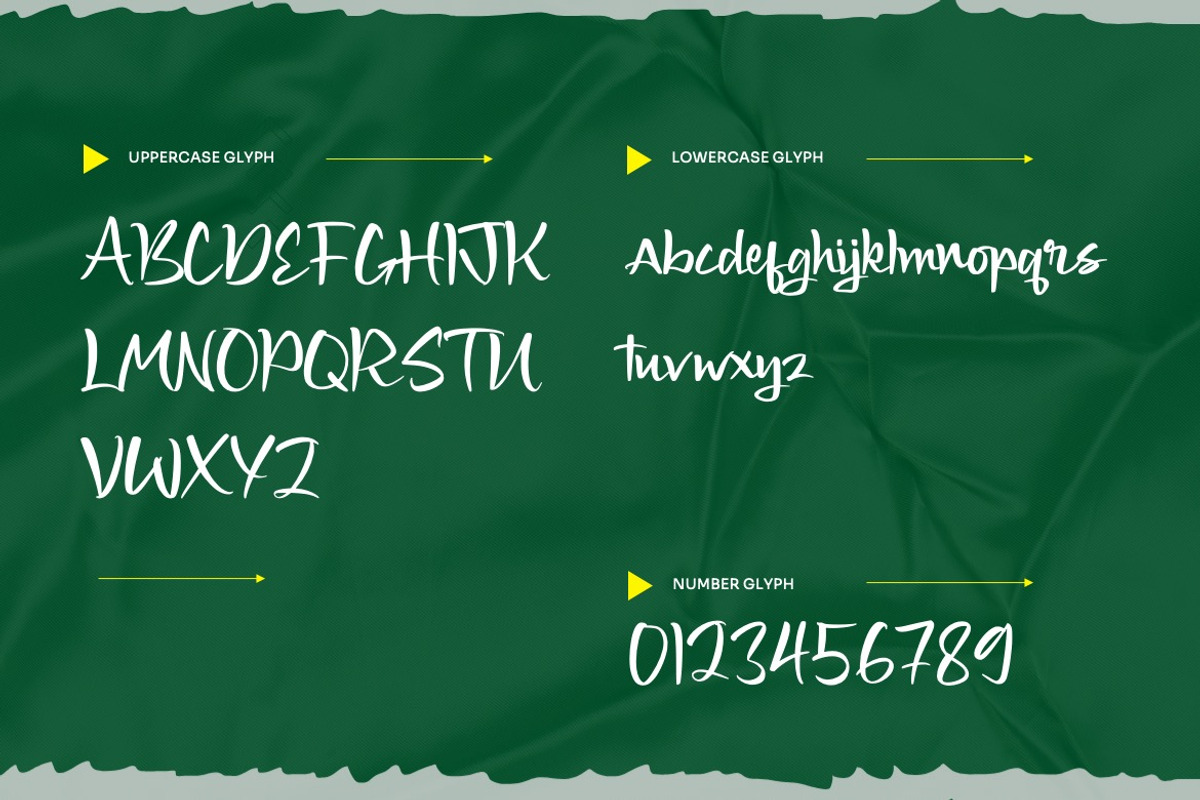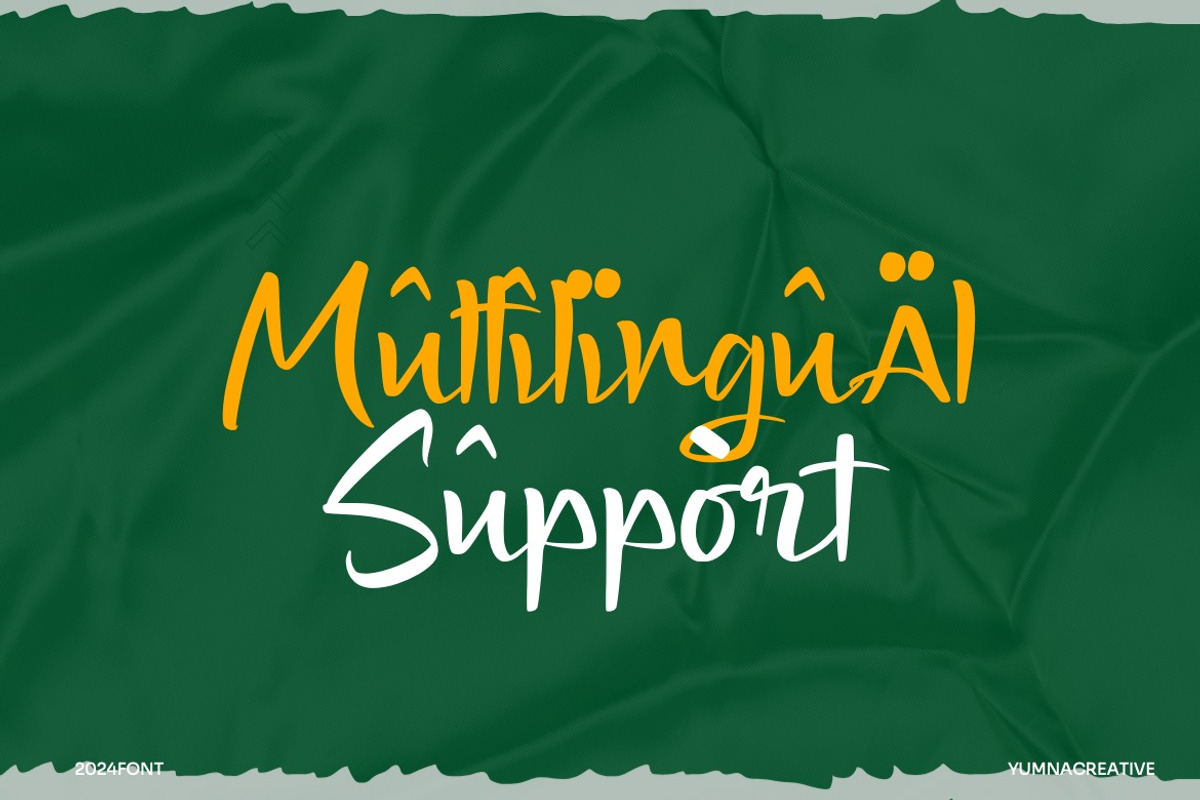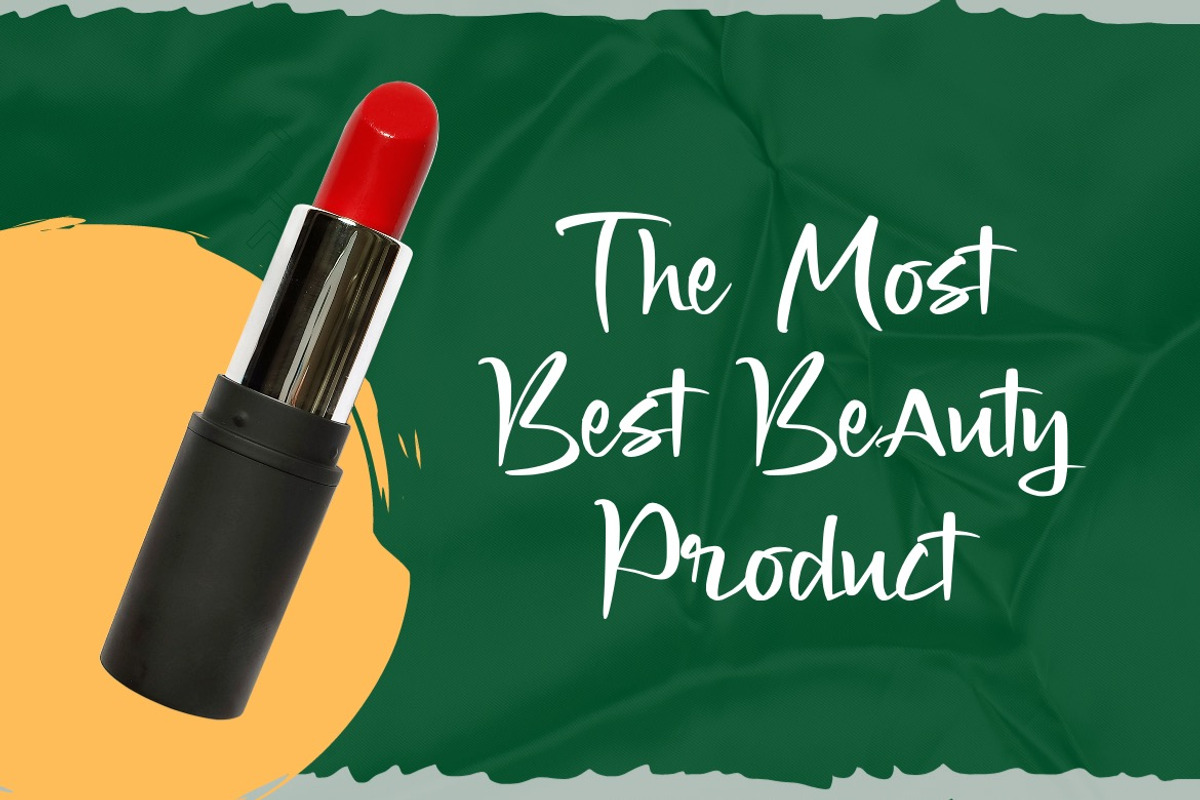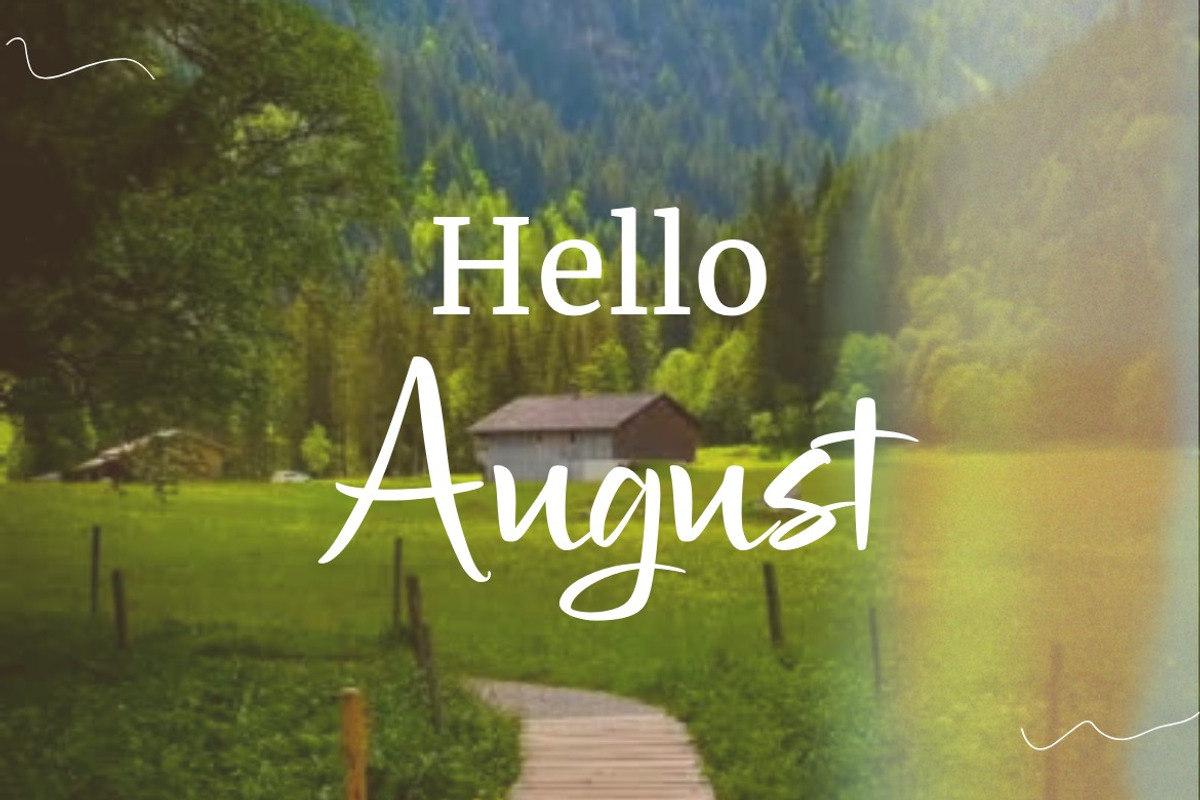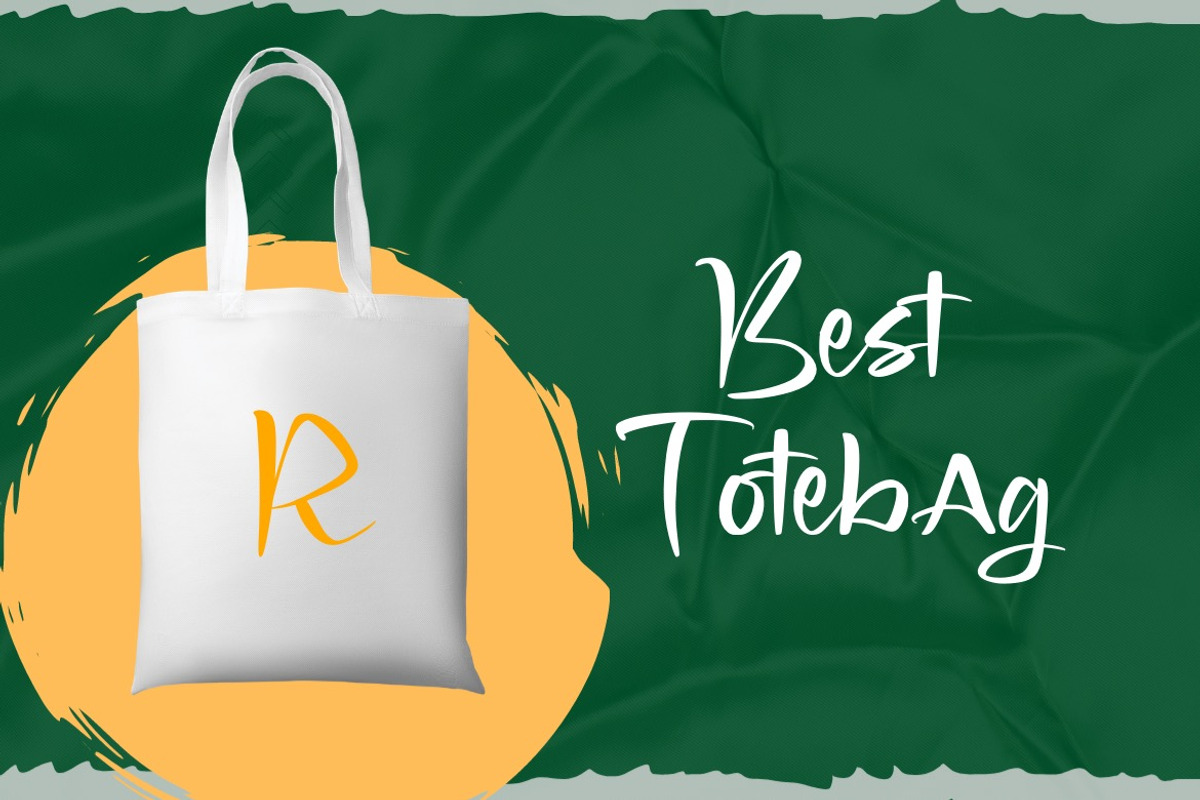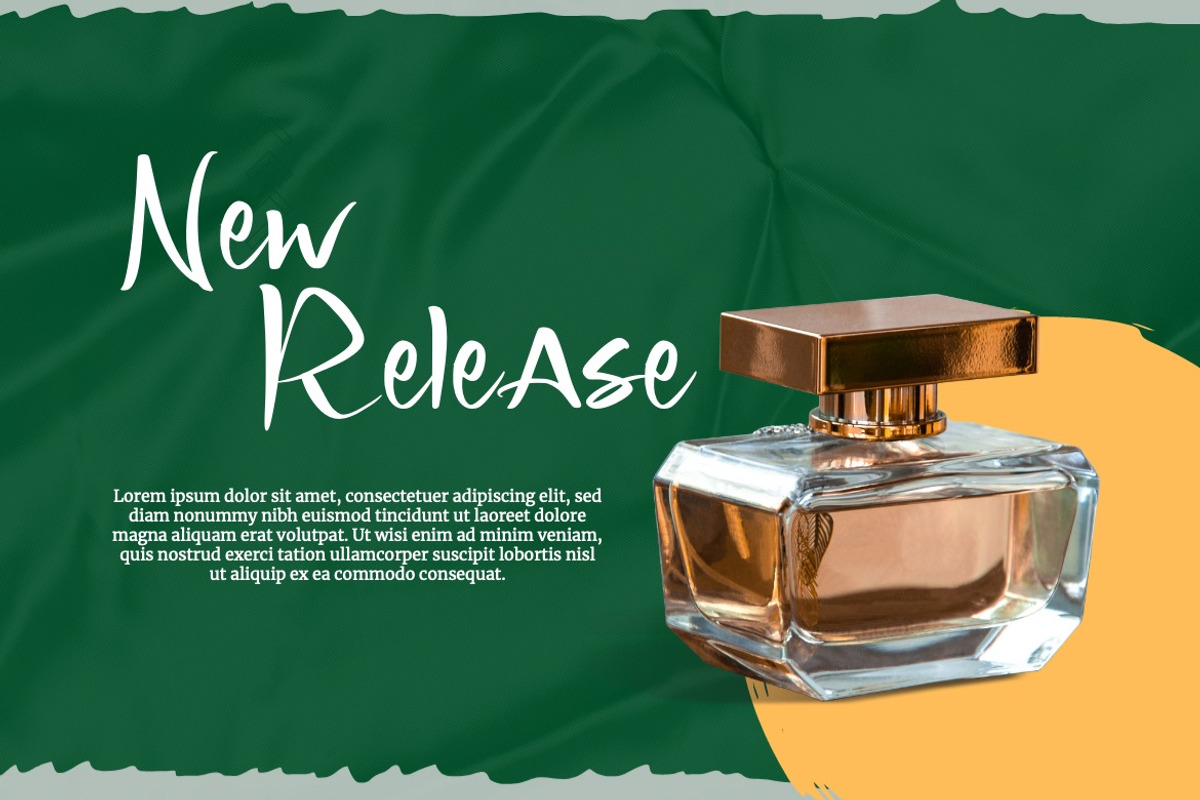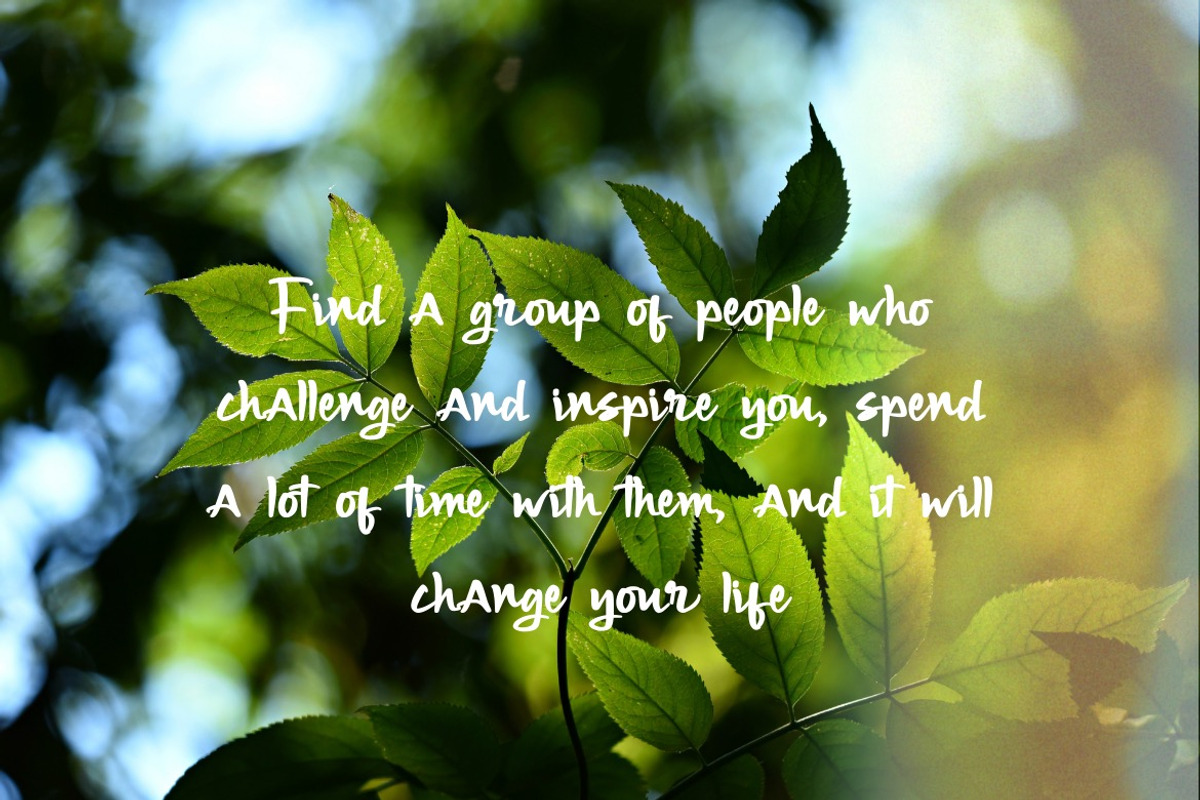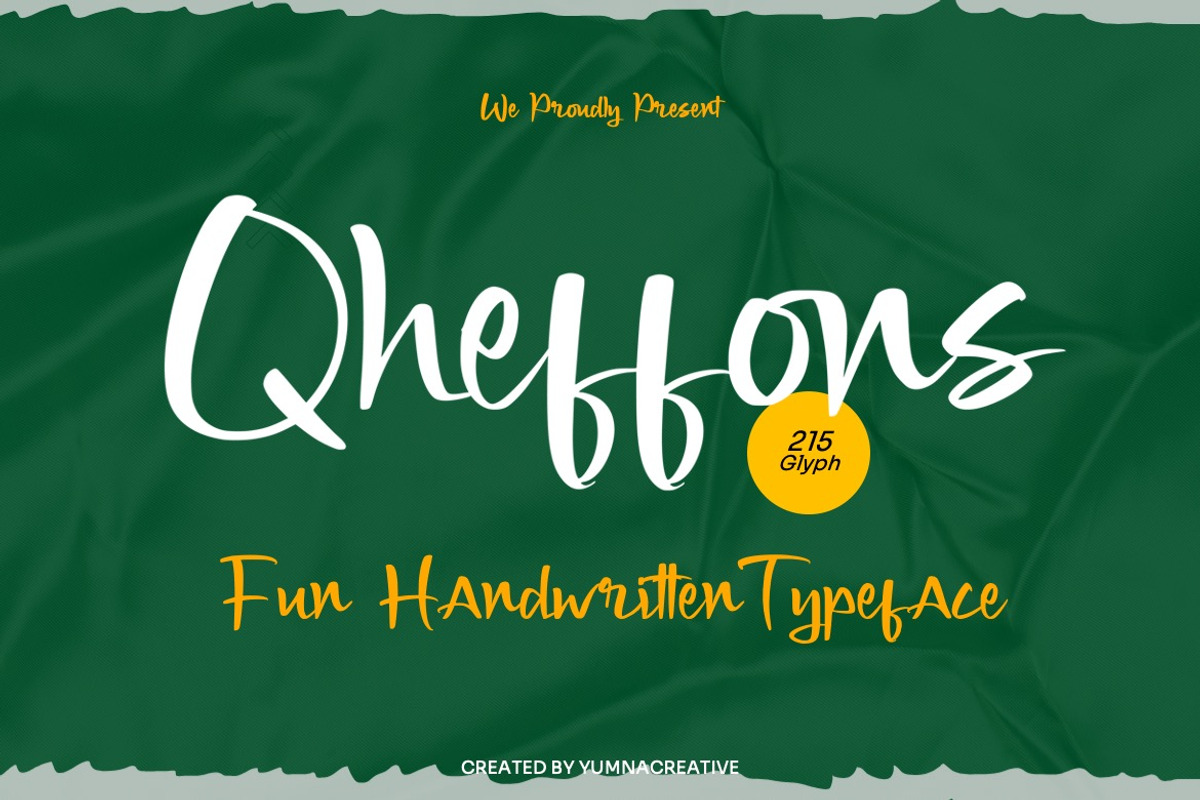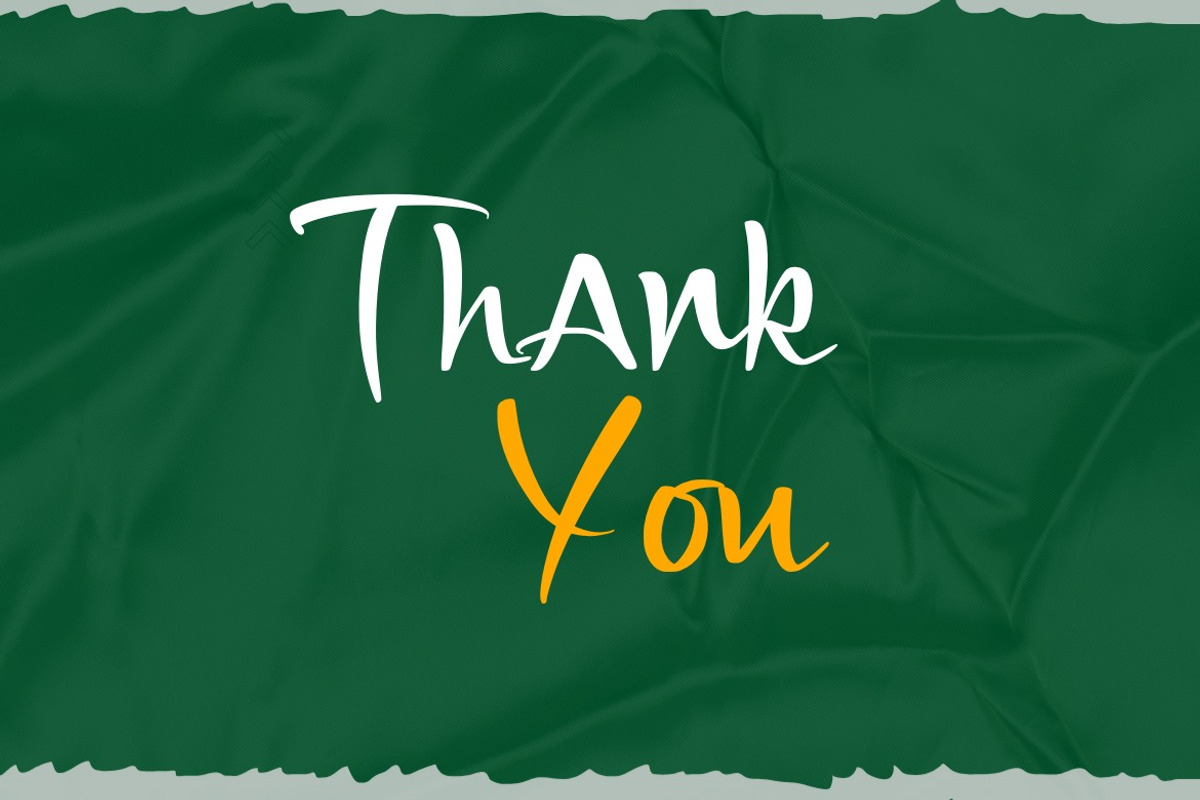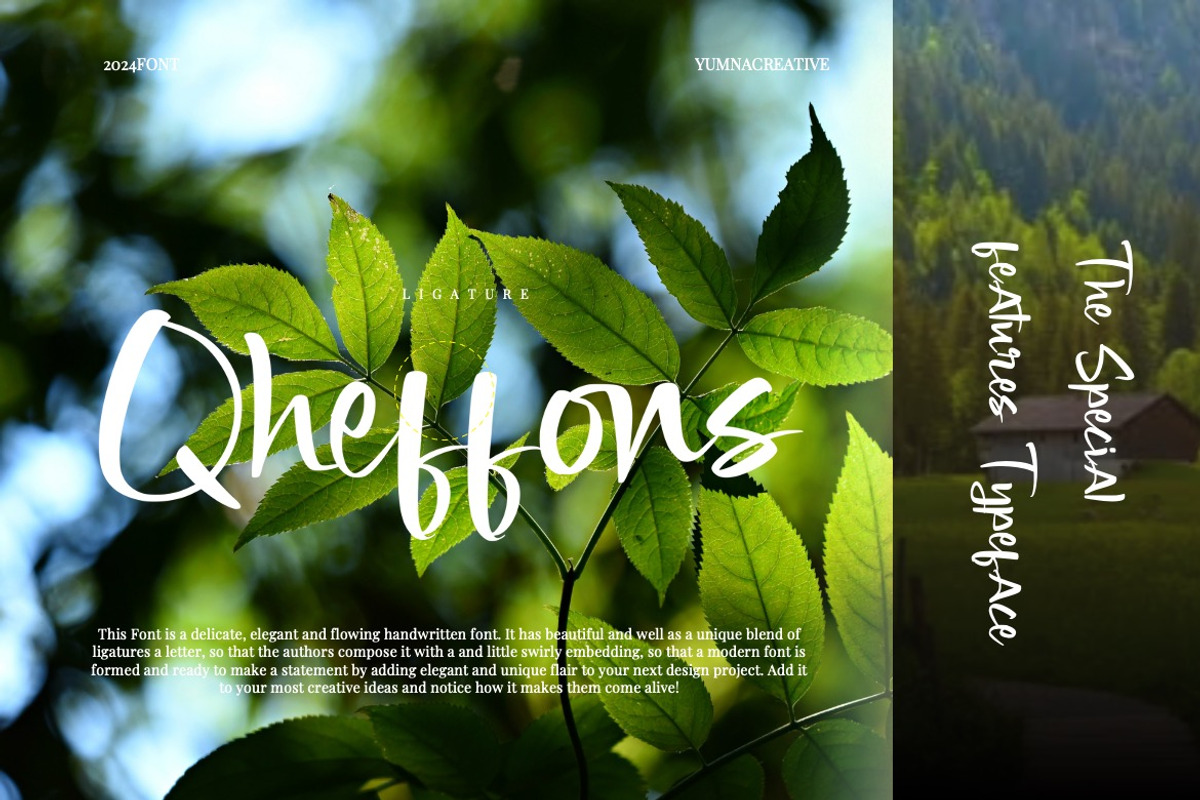
Qheffons - Fun Handwritten Font
Introducing Qheffons - Fun Handwritten Font
This Font is a delicate, elegant and flowing handwritten font. It has beautiful and well as a unique blend of ligatures a letter, so that the authors compose it with a and little swirly embedding, so that a modern font is formed and ready to make a statement by adding elegant and unique flair to your next design project. Add it to your most creative ideas and notice how it makes them come alive!
• Ligature